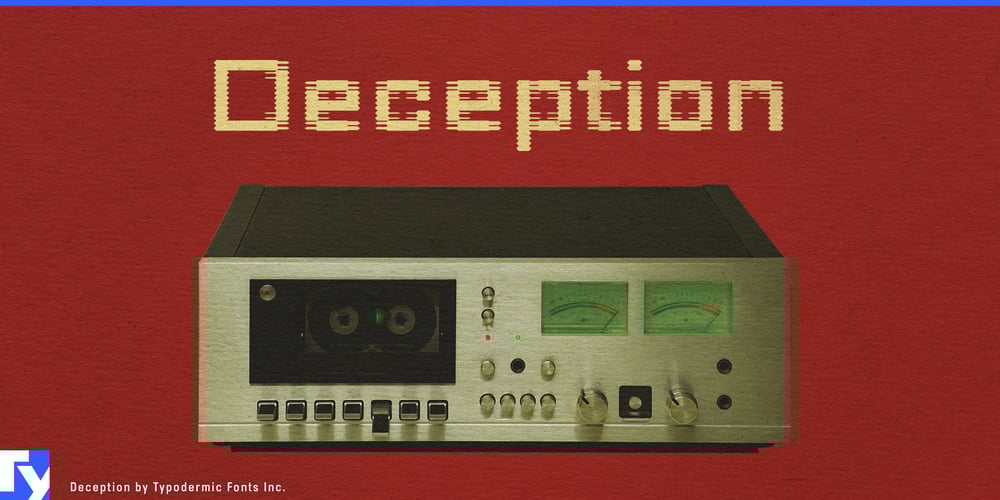
Deception Font Family was designed by Ray Larabie and published by Typodermic. Deception contains 20 styles and family package options. Deception: The typeface that turns digital glitches into typographic gold. This cutting-edge font family doesn’t just push the envelope—it shreds it, reassembles it, and feeds it through a dot-matrix printer on its last legs. With ten mind-bending effects, Deception transforms your text into a visual feast of pixelated perfection.Imagine your words rendered in Deception Array, where each character becomes a miniature skyscraper, its wide blocks pulsing like a VU meter at a cyberpunk rave. Or consider Deception Bars, which turns typography into a lenticular hallucination, text shimmering and shifting as if viewed through the cracked screen of a malfunctioning smartphone. For those who crave the aesthetic of digital decay, Deception Blocks delivers. It’s JPEG artifacts gone wild, pixel sharpening pushed to the extreme—perfect for designs that scream “Error 404: Perfection Not Found.” Need a touch of low-res luxury? Deception Diamonds adds a glow that’s part “tech mogul’s holographic business card,” part “alien disco ball.”Deception Lines plays tricks on the eye, producing grayscale illusions or banding effects that vary with resolution and rendering. It’s a choose-your-own-adventure in typeface form. Meanwhile, Deception Particles evokes the charm of vintage tech—think dot-matrix printers coughing out their swan song or laser-etched expiration dates on the world’s most avant-garde milk carton. Positivity gets a glitchy makeover with Deception Plusses, its energetic design perfect for motivational posters in a dystopian future. Deception Process simulates the fever dream of a thermal printer on its last roll, ideal for menus in a retro-futuristic diner. Nostalgia for the golden age of cathode ray tubes? Deception Scanline’s got you covered, recreating that classic videogame text crawl with eerie accuracy. For the truly daring, there’s Deception System—a typeface that looks like it’s been through a digital blender, 1-bit dithering cranked up to 11. It’s chaos theory in action, perfect for designs that need to scream “I laugh in the face of legibility!”Each Deception style comes in Regular and Bold, because even in the realm of digital entropy, sometimes you need to make a statement. OpenType fractions, numeric ordinals, and a plethora of currency symbols are included, ready to glitch up your numerals and financial data. But wait, there’s more! Deception doesn’t discriminate in its disruption. It speaks the language of digital decay across most Latin-based European writing systems. From the fjords of Norway to the plains of Hungary, Deception stands ready to transform text into a glorious mess of pixels and patterns.In a world where perfection is overrated, Deception reigns supreme. It’s not just a typeface—it’s a rebellion against the tyranny of crisp, clean design. So go ahead, embrace the glitch. Let Deception turn your next project into a masterpiece of magnificent malfunction.